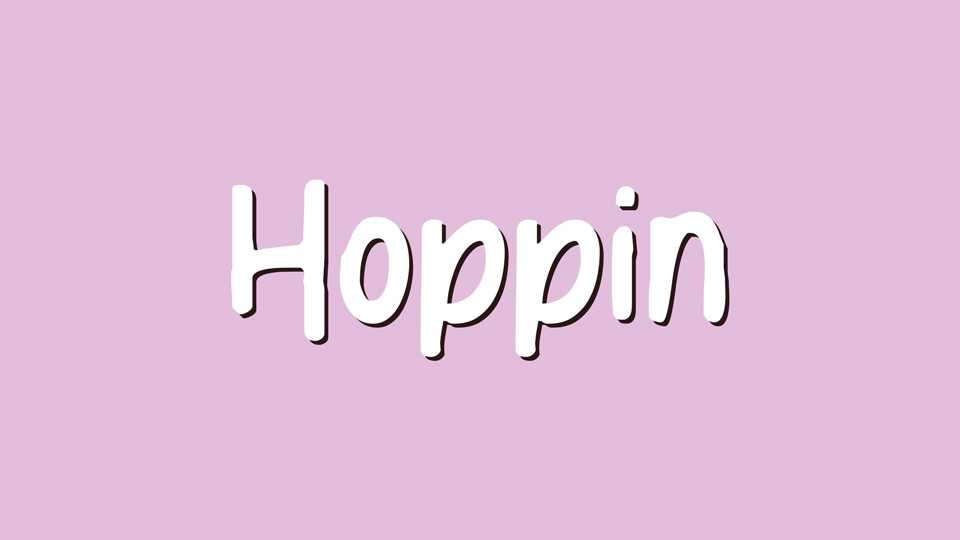
Download Hoppin font, a playful hand drawn typeface that brings a delightful touch of whimsy to your designs. Hoppin font captures the essence of simple pleasures, connecting through shared happiness and the genuine joy of hand crafted art.